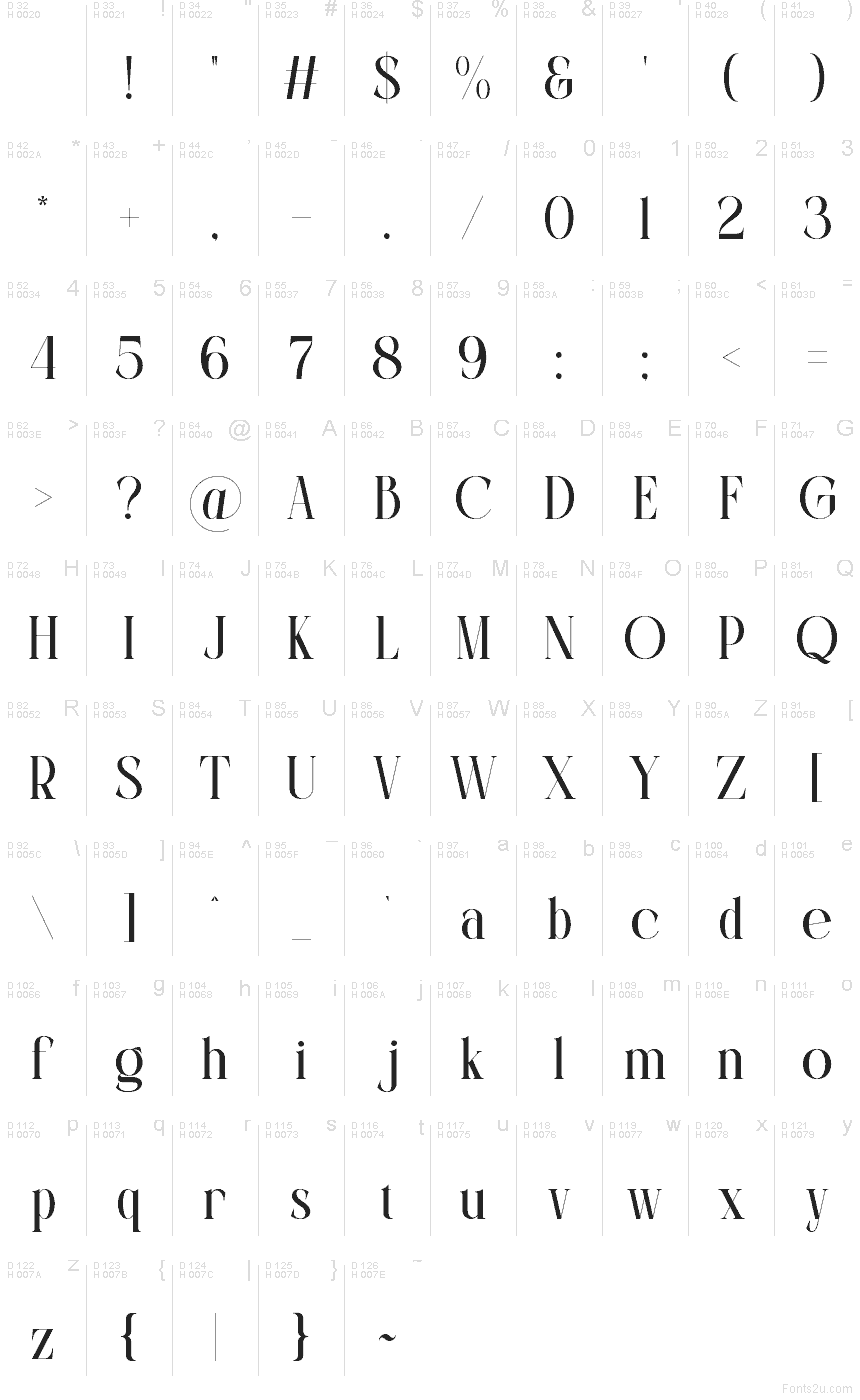
Berosh
Berosh by Ermedia Design is a free Didone serif font with a poised, fashion-editorial air. Fine hairlines meet broad, sculpted strokes, while generous rounded forms and sharply tapered finishes create an elegant rhythm with a slightly dramatic edge.
It suits magazine mastheads, beauty branding, fragrance packaging, fashion campaign headlines, book covers, and refined title cards. This free font works best where the lettering has room to breathe, especially in short cover lines or names where its strong contrast and sweeping curves can carry the composition without extra ornament.